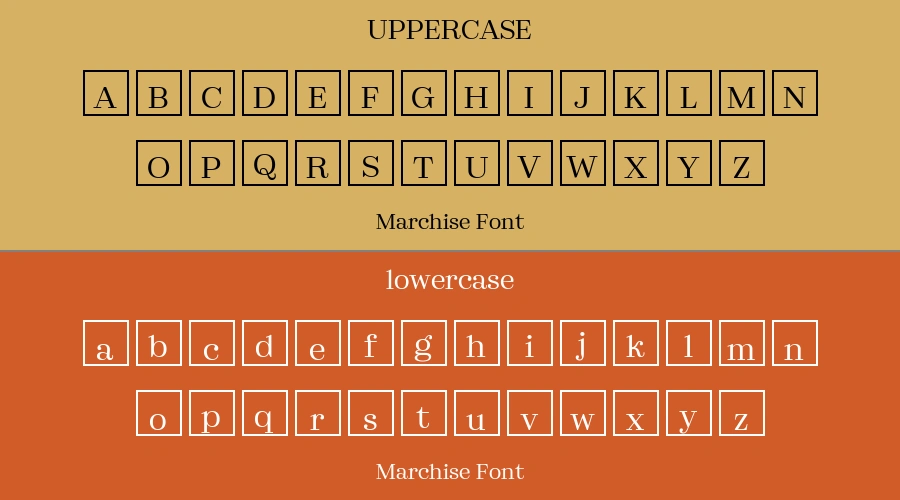
About Marchise Font
Designed with precision, Marchise Font merges geometric construction with functionality in every character. This versatility makes it particularly effective for motion graphics, where impact and technical sophistication directly impact communication quality. Each letterform demonstrates meticulous craftsmanship.
Technical excellence shines through elements like flourished entries and technical characters, enhancing typographic versatility. In image captions settings, Marchise Font proves its worth through superior numerical alignment. The thoughtful execution of counter shape and artistic influences ensures professional results.